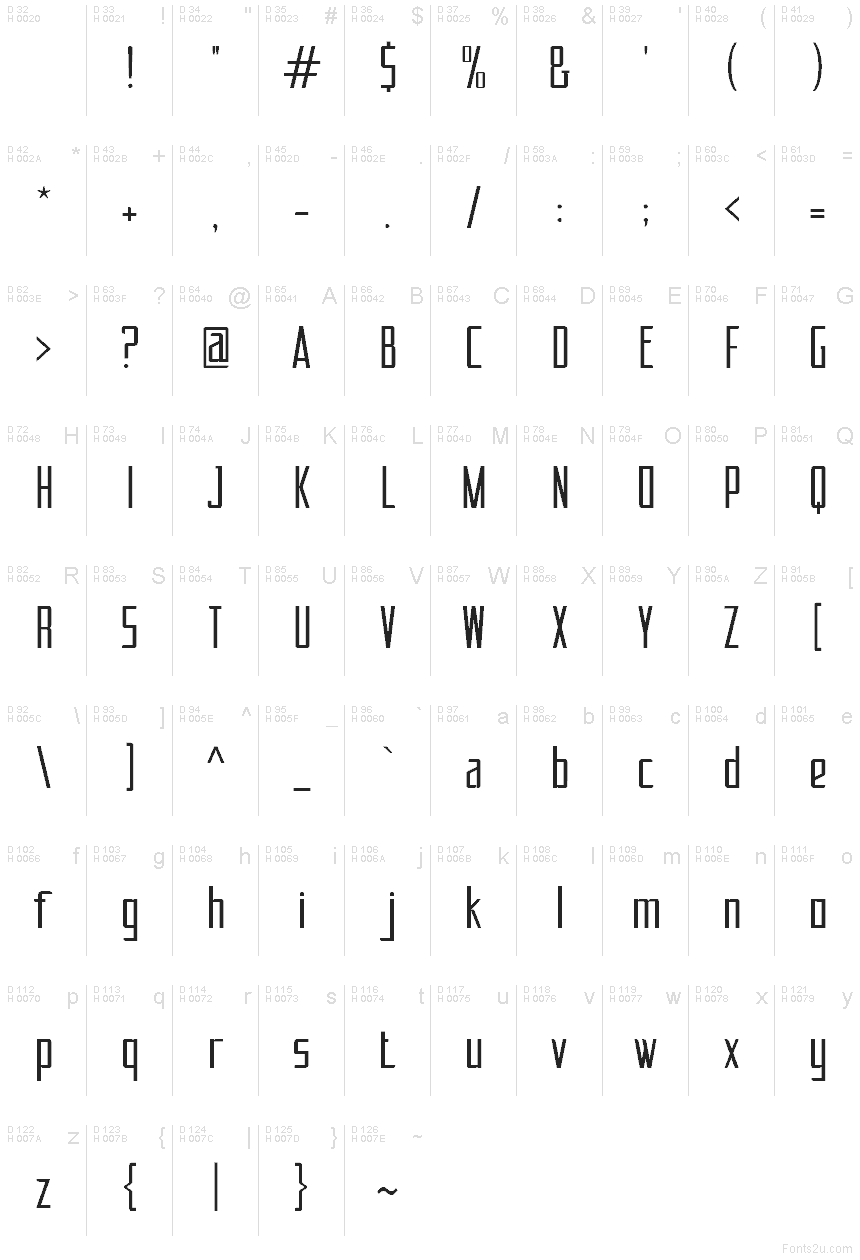
Albertville Sport
Albertville Sport font by Studio Hello Good is a free techno display typeface. Its condensed width, squared curves, and straight, piston‑like strokes deliver a clean, mechanical cadence that reads fast and feels engineered. Letters lock together with a compact rhythm, giving headlines a scoreboard punch without looking jagged or gimmicky.
This free font shines on esports logos, race posters, jersey names, streaming overlays, sci‑fi titles, and gym signage. Using Albertville Sport adds that crisp, digital‑arena energy while saving space on tight layouts. Give it a touch of extra tracking at large sizes for airflow, and pair it with a simple, neutral sans for body copy to let the angles do the talking.